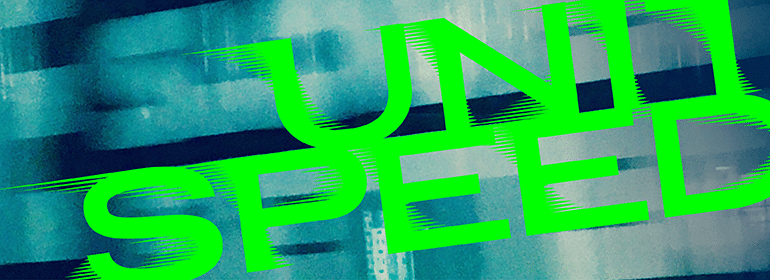
Free Font Friday: Northstream Wind
Northstream Wind (TM) designed by Jan Hendrik Weber is a dynamic display type, and described as a “Neo-Grotesque in motion”. The inspiration for the typeface was a photograph of an interesting shop sign being interrupted by a passing truck. The photo had a blur of movement across it and Weber wanted to capture that in a typeface. The design is best-suited wherever it can be writ large, like on a poster or as a shop sign.